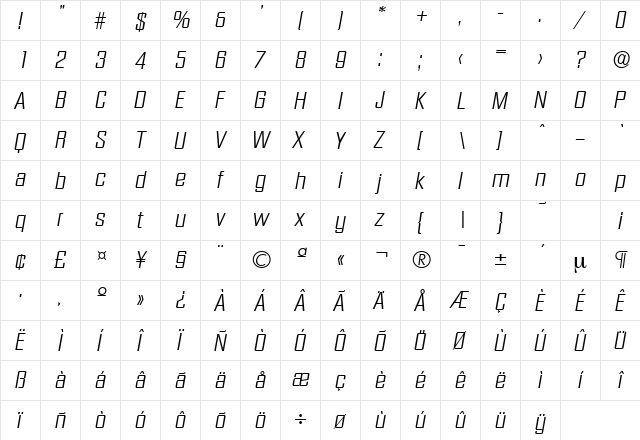
Diamante-Serial-Light RegularItalic Font Preview
Design Context for Diamante-Serial-Light Typeface
Diamante-Serial-Light is a composed and adaptable typeface that performs quietly and consistently across a wide range of design contexts. The slanted form adds forward momentum and visual energy. Its slender proportions lend an understated elegance to any composition.
Pro Tip: Try Diamante-Serial-Light for annotation and caption copy alongside an upright companion — the contrast in angle creates a dynamic but ordered typographic system.